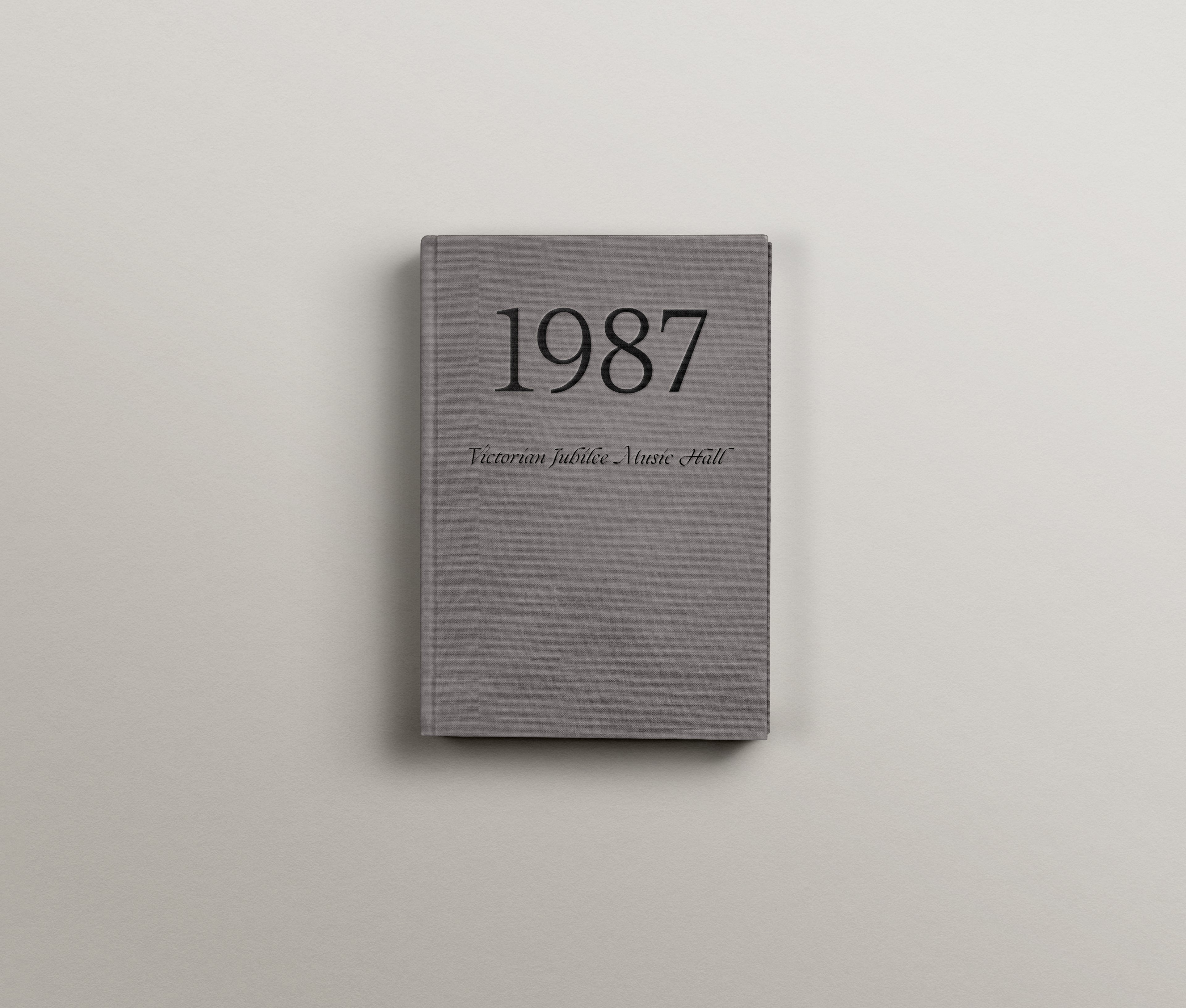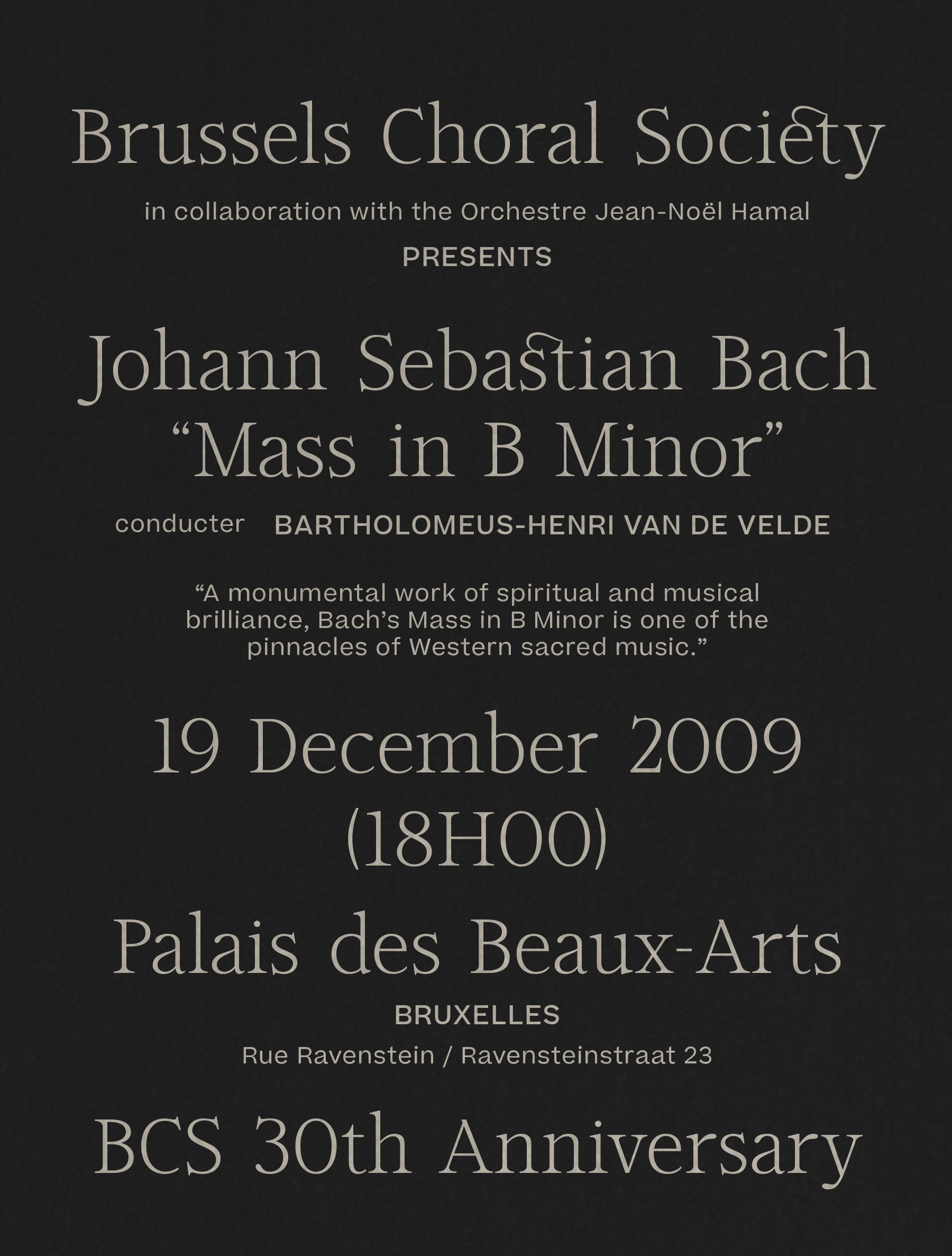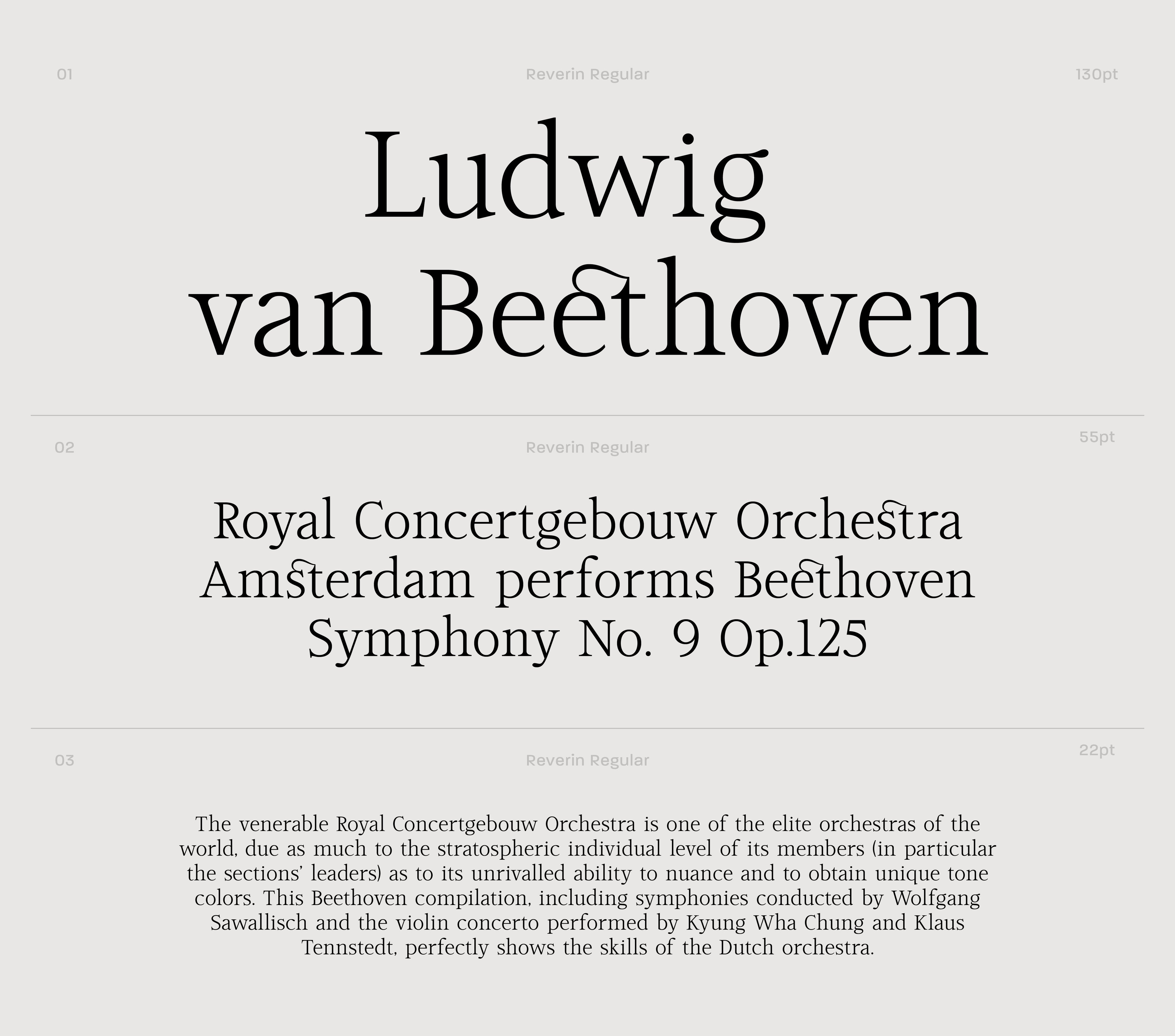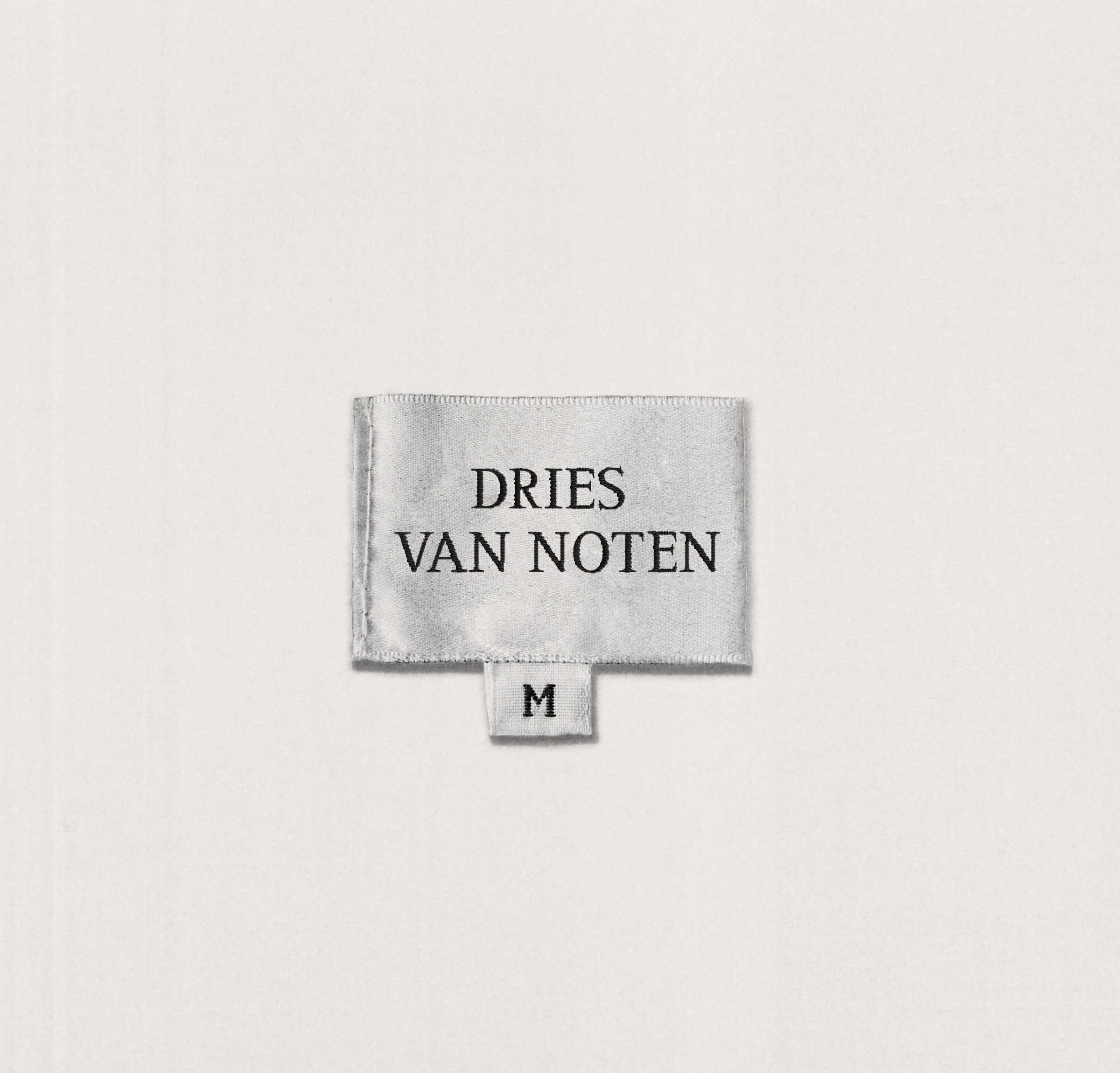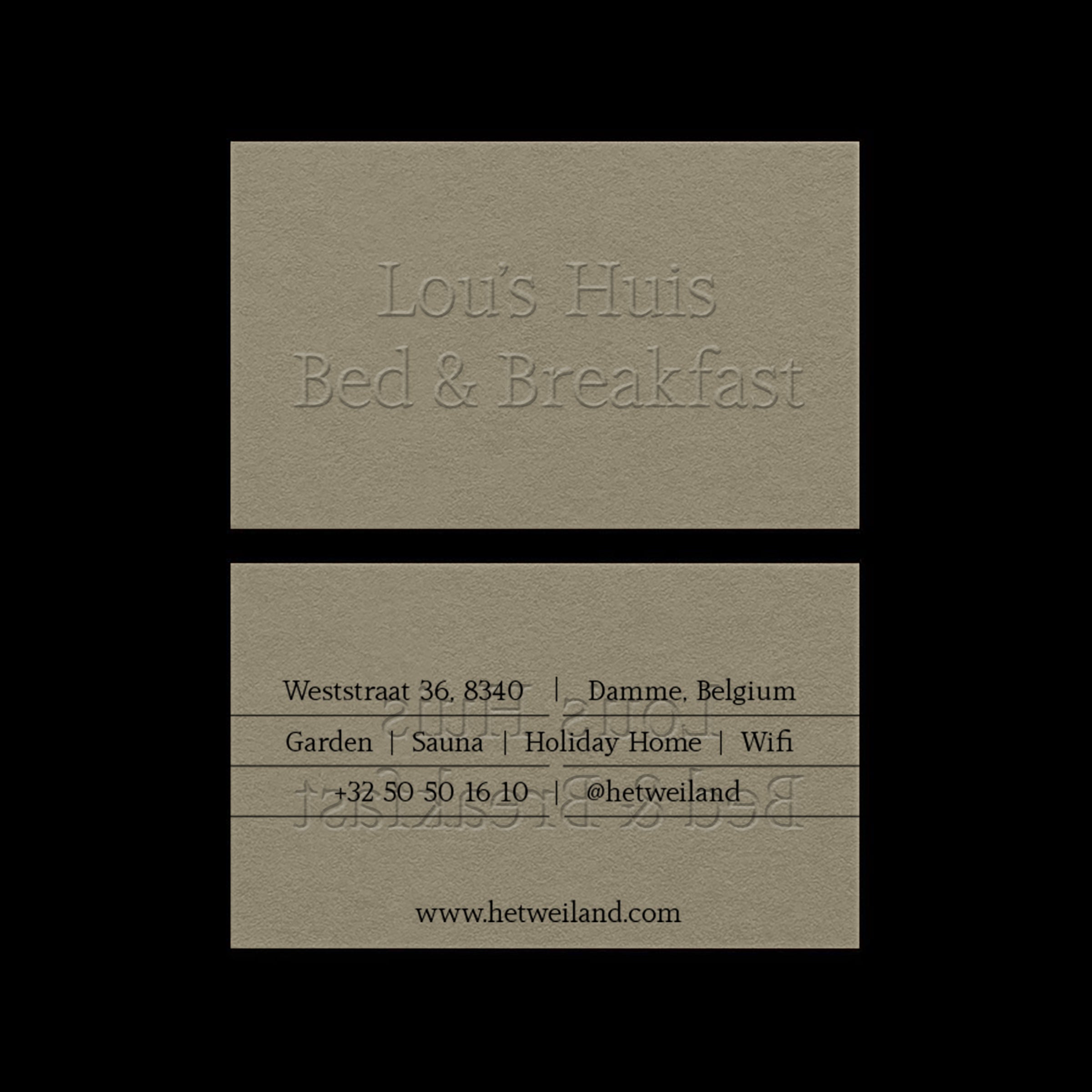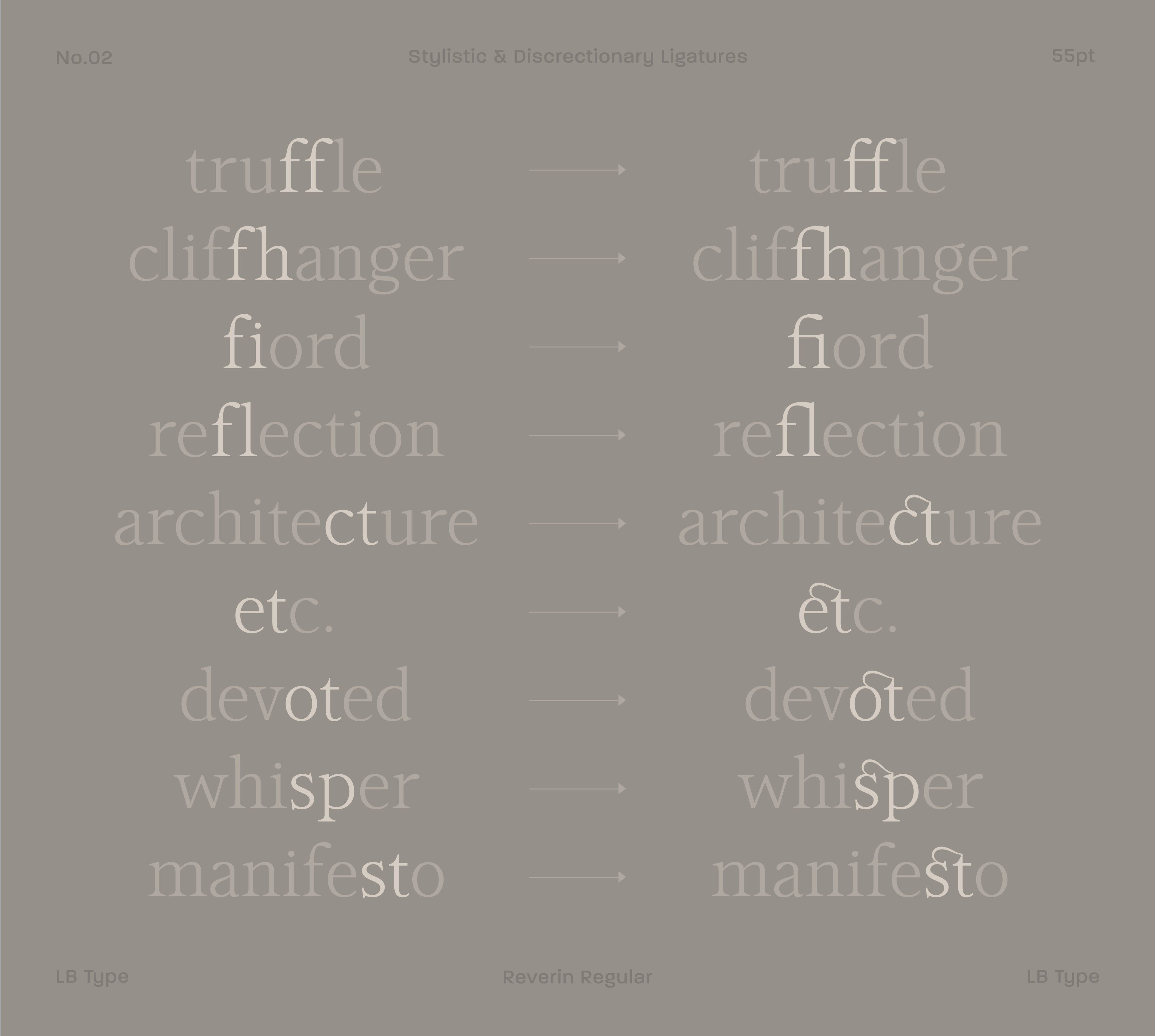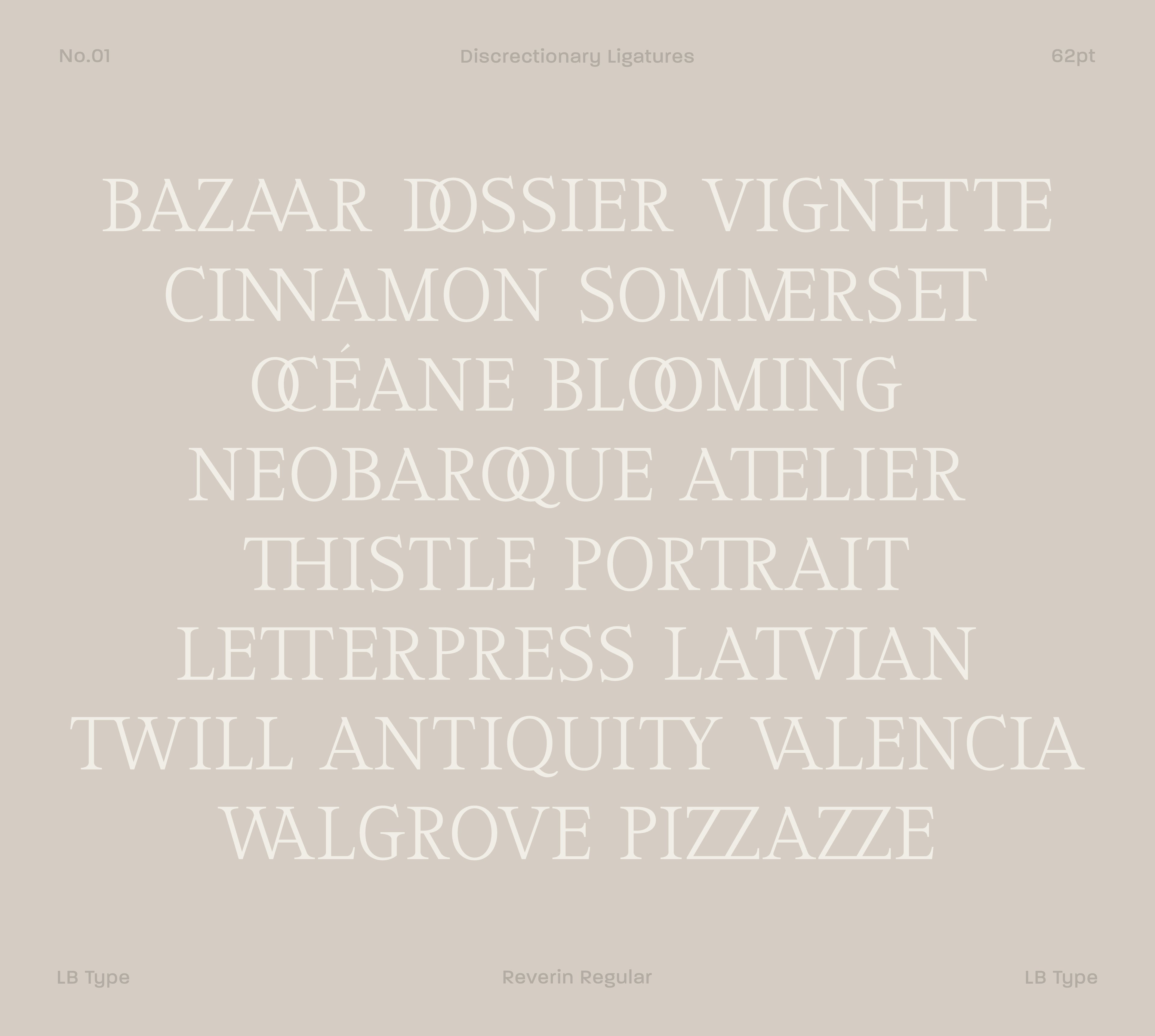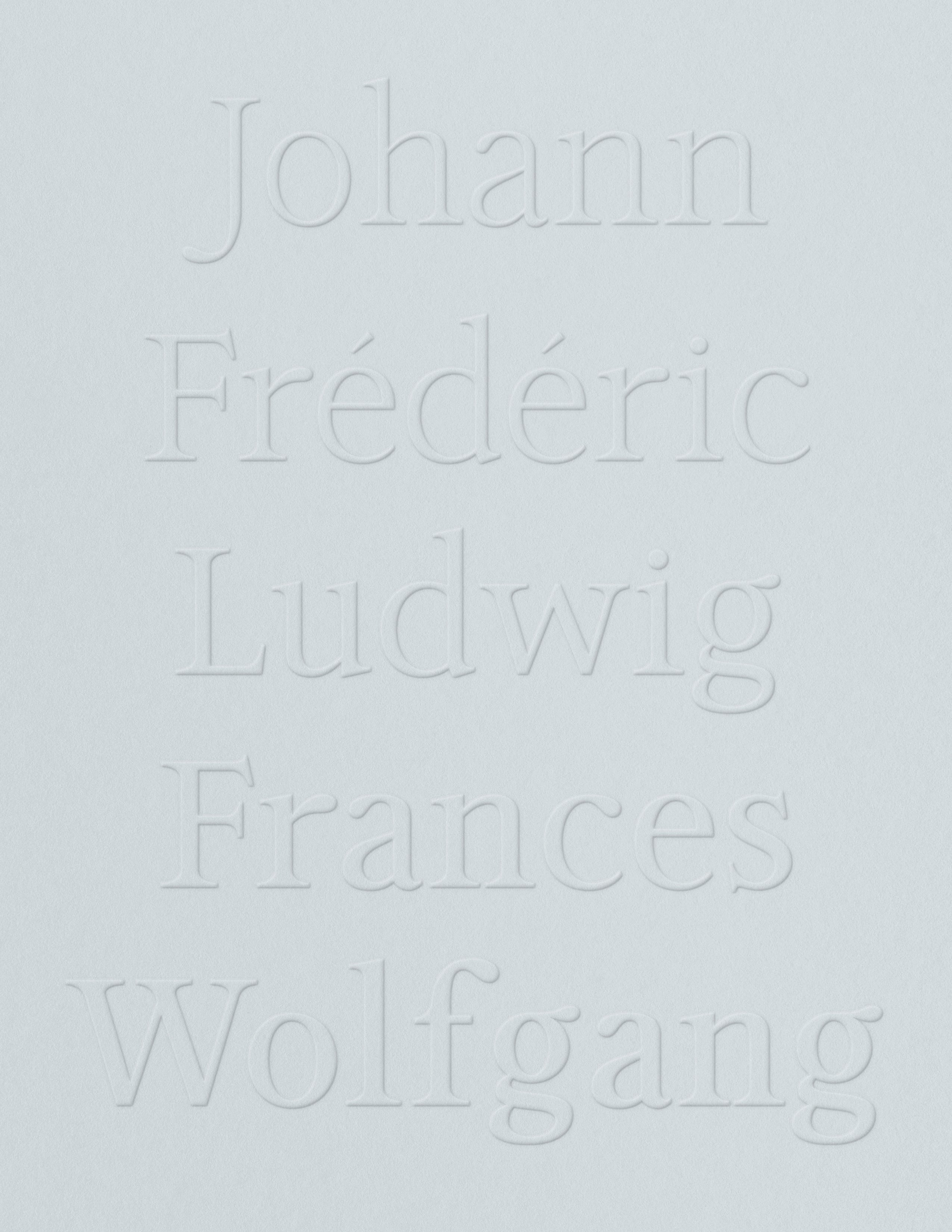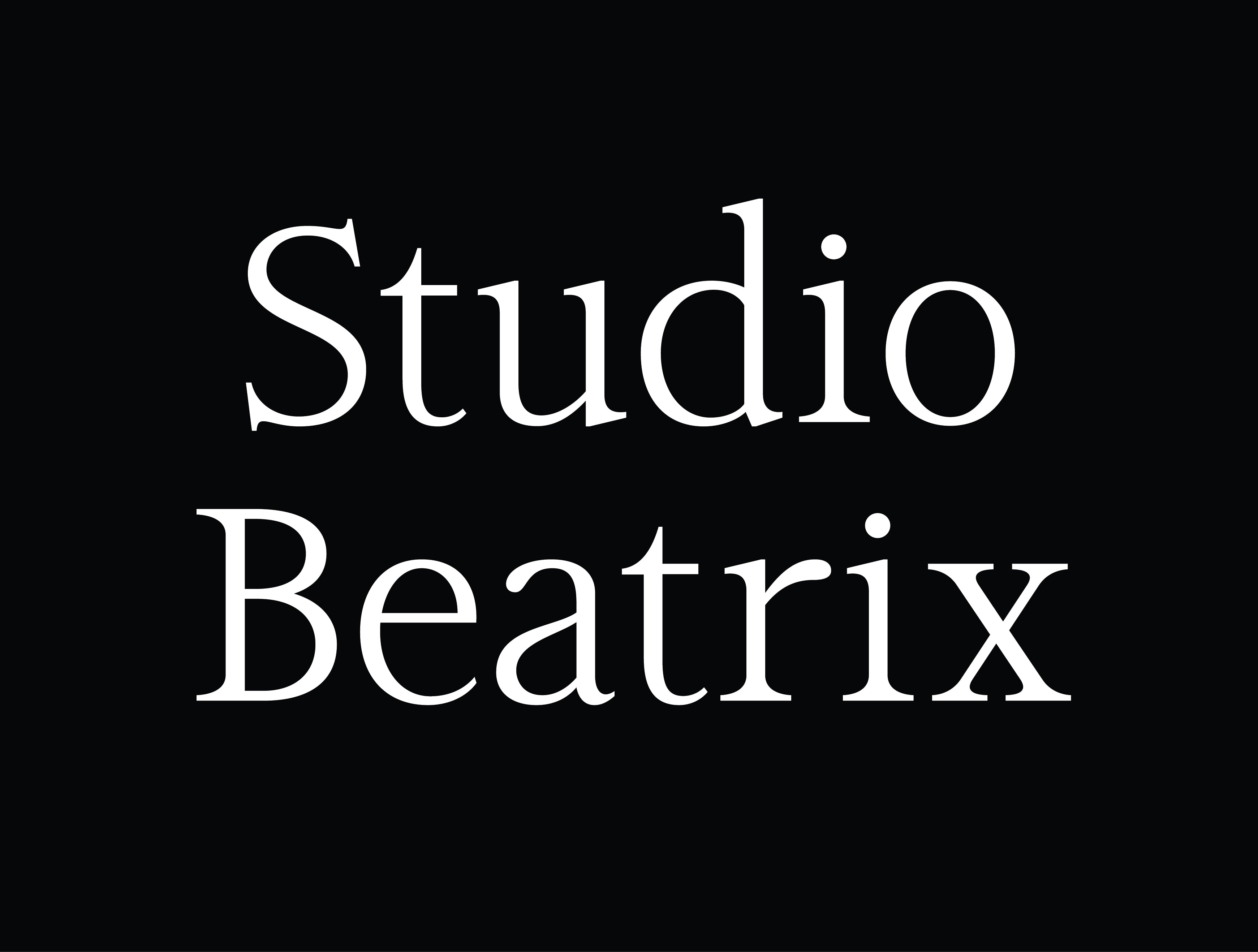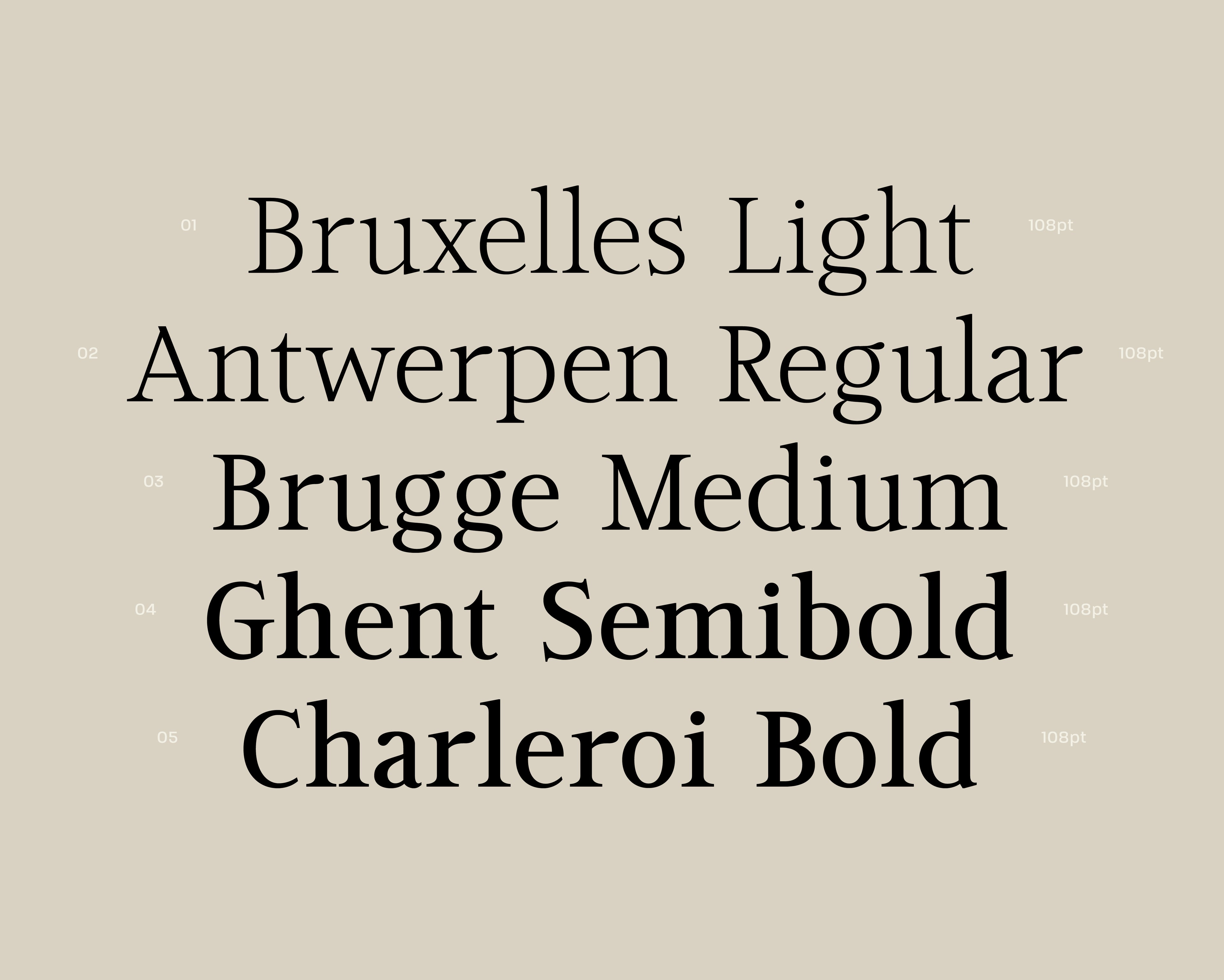
Reverin is a sophisticated Contemporary serif typeface inspired by the intersection of Belgian cultural heritage and classical music tradition. The typeface draws its form from the same principles that govern great musical composition—proportion, rhythm, and harmony—translating these concepts into letterforms that feel both structured and lyrical.
As a Contemporary serif with strong Transitional influences, Reverin features balanced proportions and controlled contrast reflecting the measured and sensible sophistication of Belgian design philosophy. Reverin's letterforms demonstrate a careful attention to detail reminiscent of the intentionality found in historic typography and the precision inherent in classical music notation. The result is a typeface that feels both scholarly and accessible, ensuring every element serves both functional and aesthetic purposes.
CLASSIFICATION
Serif — Contemporary/Transitional
WEIGHTS
5 — Light, Regular, Medium, Semibold, Bold
DESIGNER
Laura Bennett
The five-weight family, ranging from Light to Bold, demonstrates this comprehensive approach through exceptional versatility while maintaining Reverin's core personality across all weights. Each weight has been carefully developed to preserve the typeface's distinctive proportions and elegant details, making it equally suitable for high-end branding, cultural institution materials, and editorial applications where sophisticated typography is paramount. Featuring over 360 glyphs, a set of ligatures with melodic flow and language support for over 200 latin languages, Reverin provides designers with a versatile typographic solution for any project.